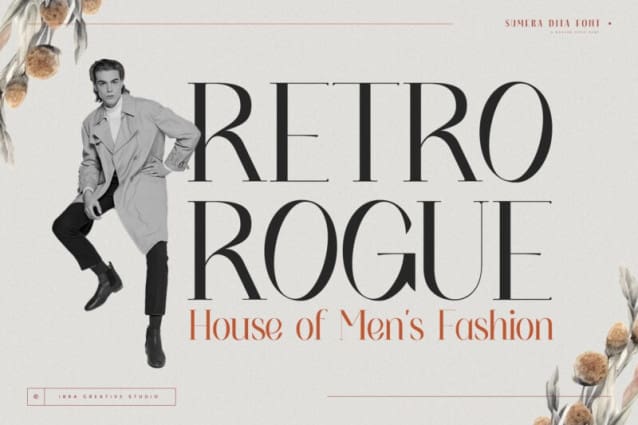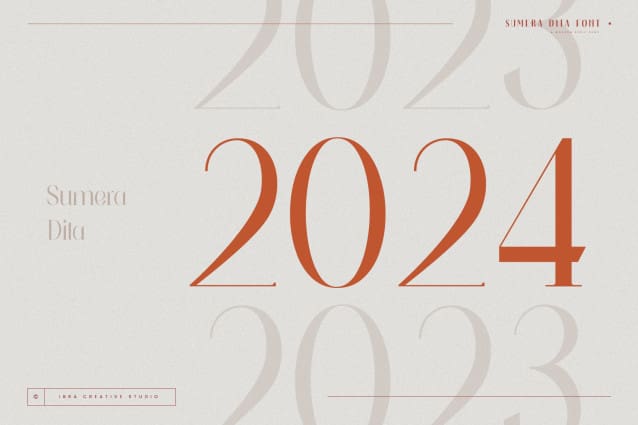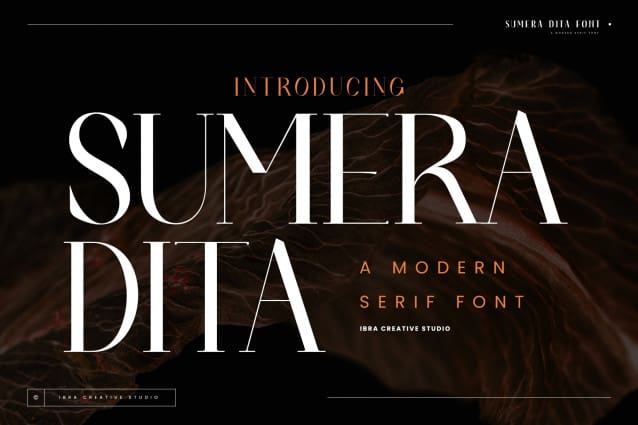
Sumera Dita Font
Sumera Dita Font is a contemporary serif font that seamlessly merges classic sophistication with a modern aesthetic. Its refined and elegant letterforms exude a sense of timeless grace, making it a versatile choice for a wide range of design applications. With a balanced and harmonious design, Sumera Dita strikes the perfect equilibrium between tradition and innovation. The subtly sculpted serifs and distinctive letter shapes contribute to its unique character, ensuring readability while adding a touch of personality to any project. Whether used in print or digital media, Sumera Dita brings a touch of refined professionalism to typographic compositions, making it a go-to choice for those seeking a modern serif font with a timeless appeal.